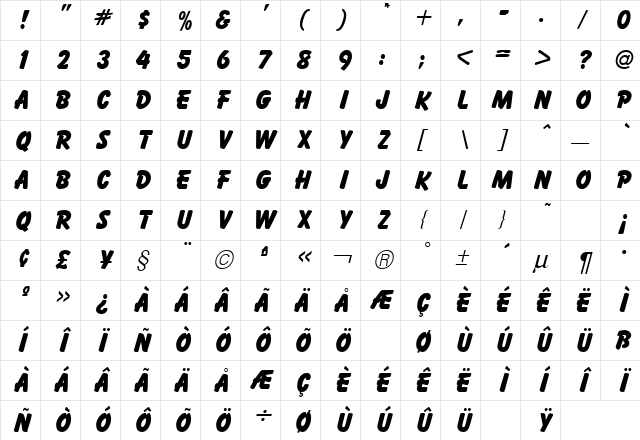
Balloon Extra Bold Regular
Complete Balloon Extra Bold Regular glyph index. Displaying only characters natively supported by Balloon Extra Bold Regular font.
Design Context for Balloon Extra Bold
Balloon Extra Bold is a composed and adaptable typeface that performs quietly and consistently across a wide range of design contexts. Its bold stroke weight gives it real presence on the page.
Pro Tip: Use Balloon Extra Bold in both headline and body roles to test its range before committing to a single application.